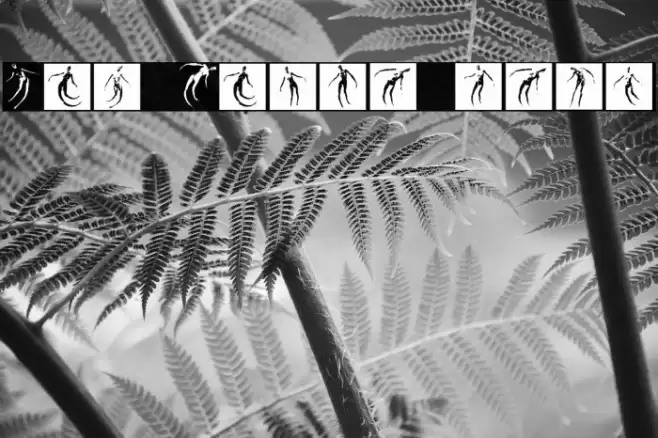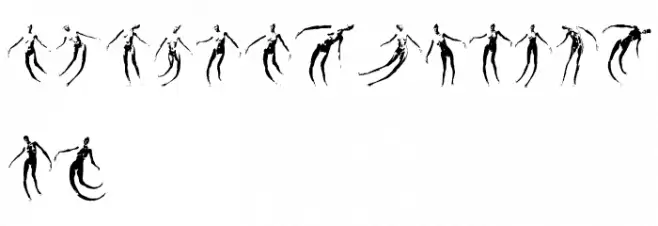
Body Moving Regular Font
This font features abstract, expressive human figures in dynamic, dance-like poses as glyphs, rendered in a high-contrast, brushstroke style with a hand-drawn, artistic appearance. Each character is unique, emphasizing movement and fluidity rather than traditional letterforms.
Expressive, brushstroke figures form each glyph, evoking motion and artistry from Uncategorized fonts.
- Proposed Projects: Art installations, dance or performance posters, album covers, experimental branding, creative event invitations.
- Overall Style: Decorative, Artistic, Expressive
- Use Case: Logos, Posters, Artistic projects, Display titles